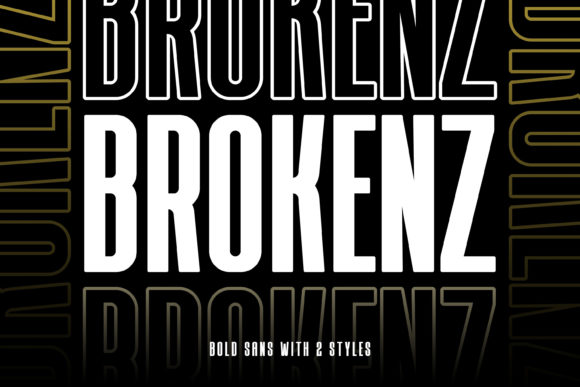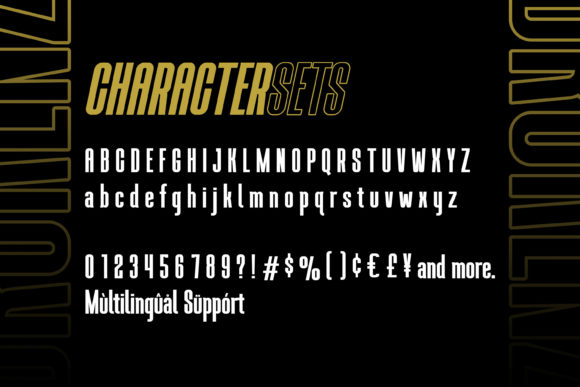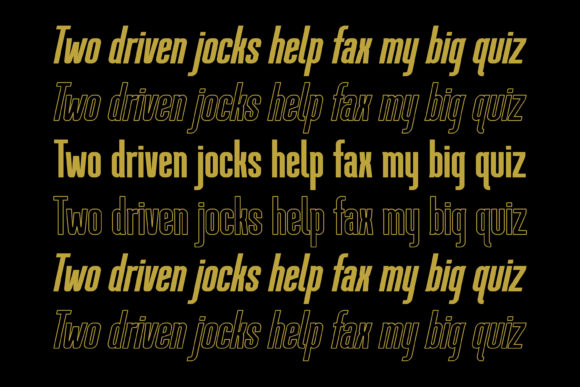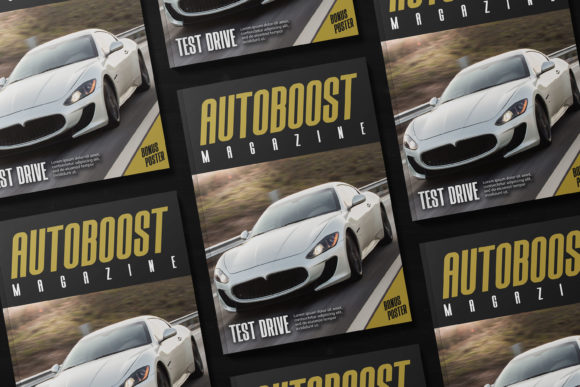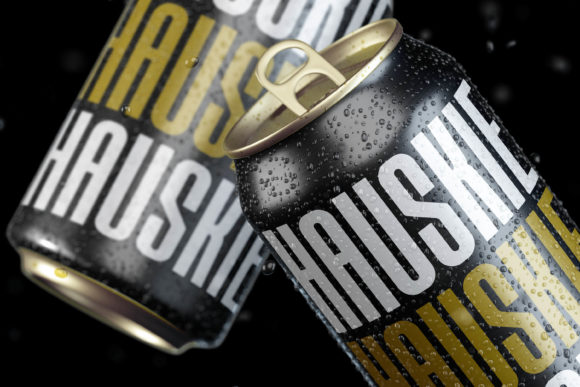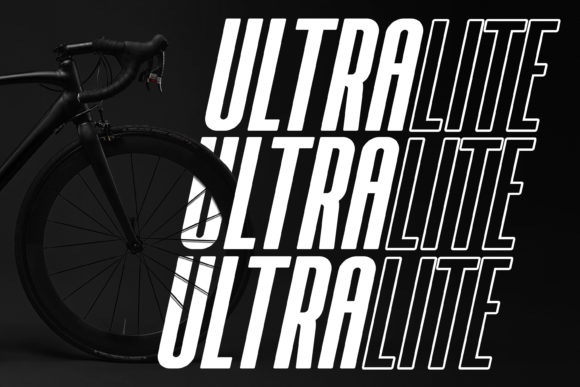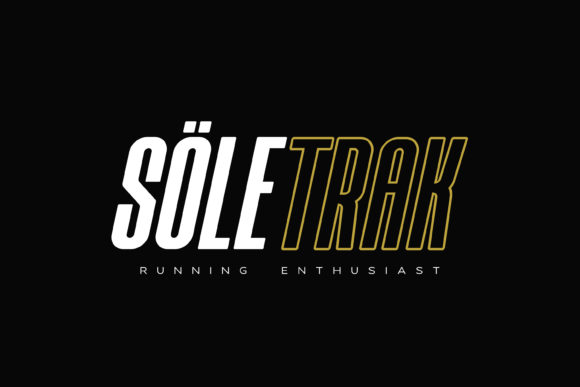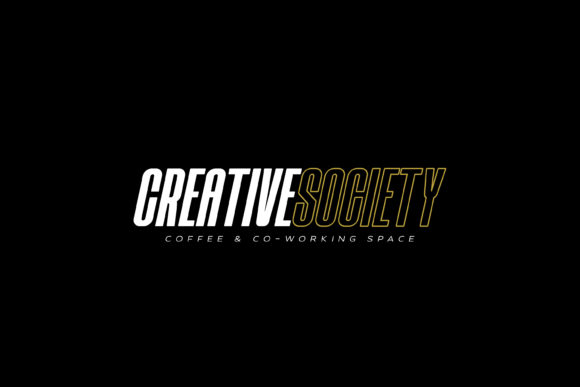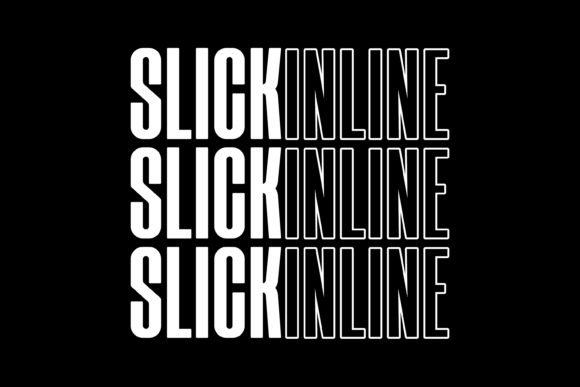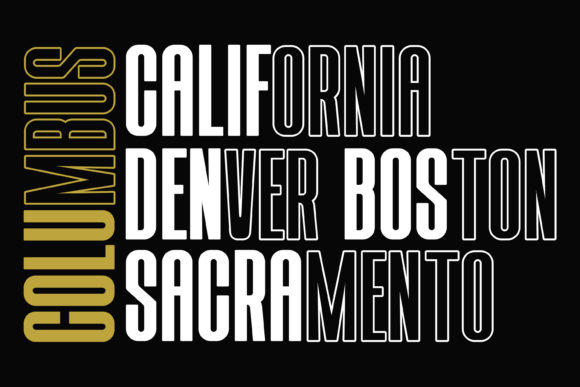
Brokenz Font
About Brokenz Font
Brokenz is a strong sans serif font and brings its own unique style to any design project. This fantastic font is best suited for headlines of all sizes, as well as for blocks of text that have both maximum and minimum variations. Whether it’s for web, print, moving images or anything else – Brokenz will look spectacular.